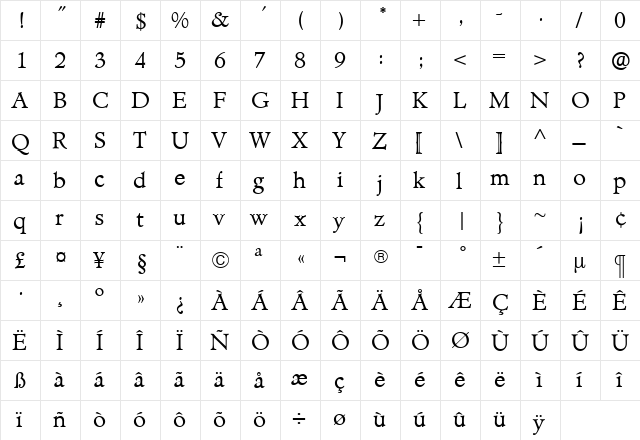
TCAdministerBook Roman
TCAdministerBook is a composed and adaptable typeface that performs quietly and consistently across a wide range of design contexts.